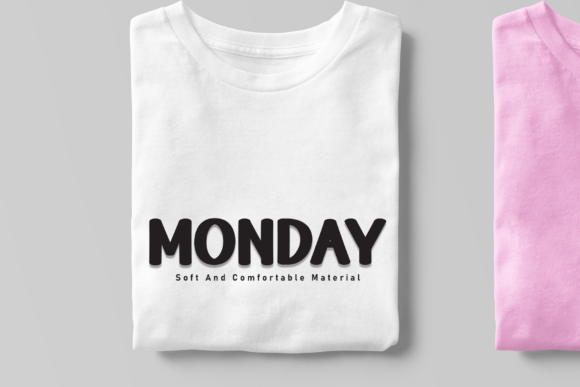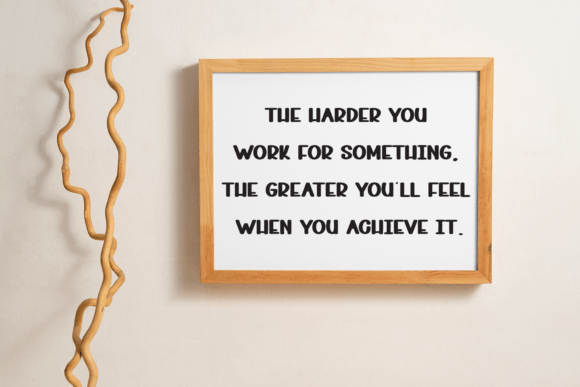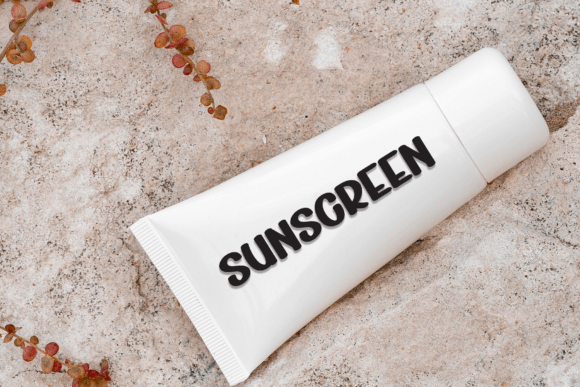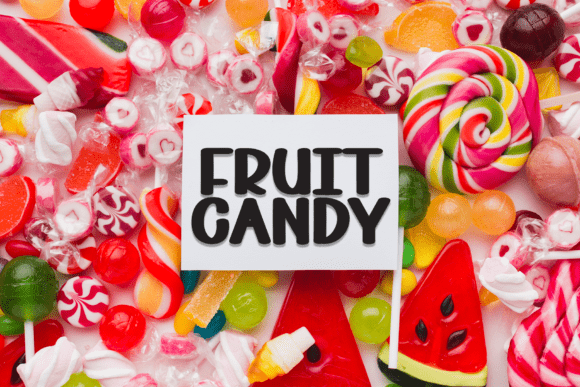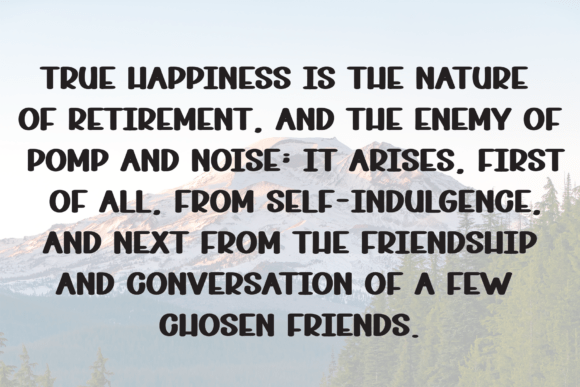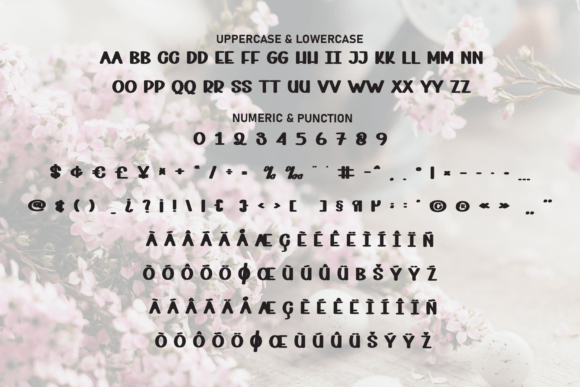
Easter Flowers Font: A Delicate Charm for Your Creative Designs
Are you looking for a font that can add a touch of whimsy and sweetness to your designs? Look no further than the Easter Flowers Font. This friendly, handwritten display font is perfect for a range of creative projects, from wedding invitations to greeting cards, and can bring a playful touch to any design.
The Charm of Easter Flowers Font
The Easter Flowers Font is a delightful font that is dripping with sweetness. Its delicate charm is perfect for designers and crafters who want to add a touch of elegance and whimsy to their designs. The font’s handwritten style gives it a personal and friendly feel, making it perfect for a range of creative projects.
One of the best things about the Easter Flowers Font is its versatility. It can be used in a range of creative environments, from wedding invitations to greeting cards, and can seamlessly merge with a range of design styles. Whether you’re looking to add a touch of elegance to a formal design or a playful touch to a more casual design, the Easter Flowers Font is the perfect choice.
The Easter Flowers Font is a popular choice for wedding invitations and greeting cards. Its delicate charm and whimsical style make it perfect for these types of designs, and it can add a touch of elegance and sophistication to any invitation or card.
For wedding invitations, the Easter Flowers Font can be used to create beautiful and elegant designs that set the tone for the big day. The font’s handwritten style gives it a personal and romantic feel, making it perfect for wedding invitations.
For greeting cards, the Easter Flowers Font can be used to create fun and playful designs that are perfect for any occasion. Whether you’re looking to create a birthday card, a thank you card, or a holiday card, the Easter Flowers Font is a great choice.
Add a Playful Touch to Your Designs
The Easter Flowers Font is not just limited to wedding invitations and greeting cards. It can be used to add a playful touch to any design, from party invitations to social media graphics.
The font’s whimsical style makes it perfect for designs that require a touch of fun and playfulness. Whether you’re looking to create a design for a children’s party or a social media graphic for a fashion brand, the Easter Flowers Font is a great choice.
Seamlessly Merge with a Range of Design Styles
One of the best things about the Easter Flowers Font is its ability to seamlessly merge with a range of design styles. Whether you’re working on a formal design or a more casual design, the Easter Flowers Font can adapt to any style.
The font’s versatility makes it perfect for designers and crafters who work on a range of projects. Whether you’re working on a wedding invitation or a social media graphic, the Easter Flowers Font is a great choice.
Experience the Allure of Easter Flowers Font
If you’re looking for a font that can add a touch of whimsy and sweetness to your designs, look no further than the Easter Flowers Font. This adorable font effortlessly enhances your design experience, and its delicate charm is perfect for a range of creative projects.
With the Easter Flowers Font, you can indulge your artistic cravings and create beautiful and elegant designs that are perfect for any occasion. Whether you’re a designer or a crafter, the Easter Flowers Font is a great choice for anyone looking to add a touch of whimsy and fun to their designs.
Key Features of Easter Flowers Font
- Delicate charm and whimsical style
- Perfect for wedding invitations and greeting cards
- Can add a playful touch to any design
- Seamlessly merges with a range of design styles
- Versatile and adaptable
- Perfect for designers and crafters
In conclusion, the Easter Flowers Font is a delightful font that is perfect for designers and crafters who want to add a touch of whimsy and sweetness to their designs. Its delicate charm and whimsical style make it perfect for a range of creative projects, from wedding invitations to greeting cards.
With its versatility and adaptability, the Easter Flowers Font is a great choice for anyone looking to add a playful touch to their designs. Whether you’re working on a formal design or a more casual design, the Easter Flowers Font is a great choice.
So why not indulge your artistic cravings and experience the allure of the Easter Flowers Font? With its delicate charm and whimsical style, it’s the perfect font for any designer or crafter looking to add a touch of fun and playfulness to their designs.